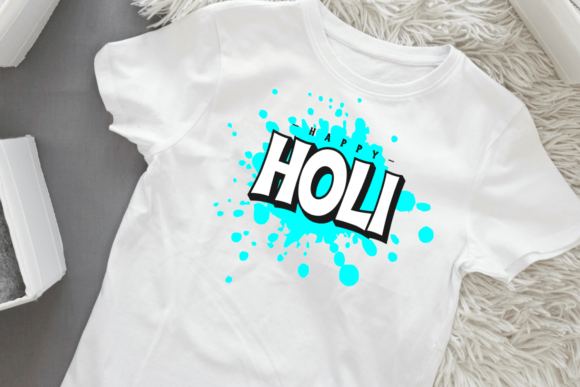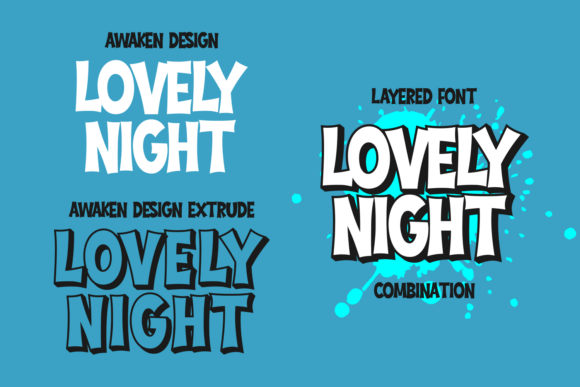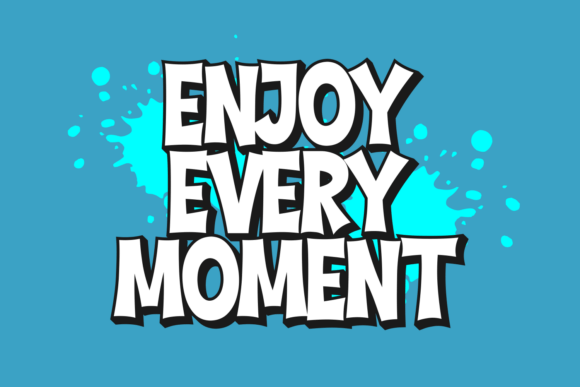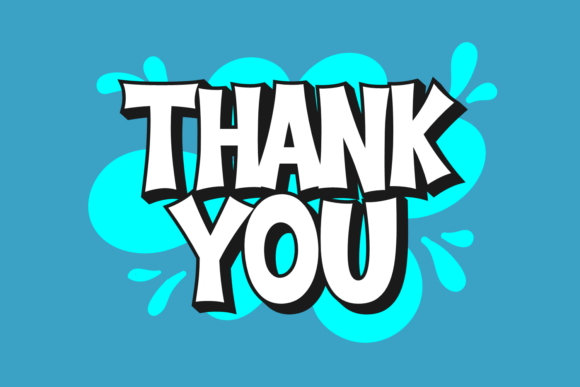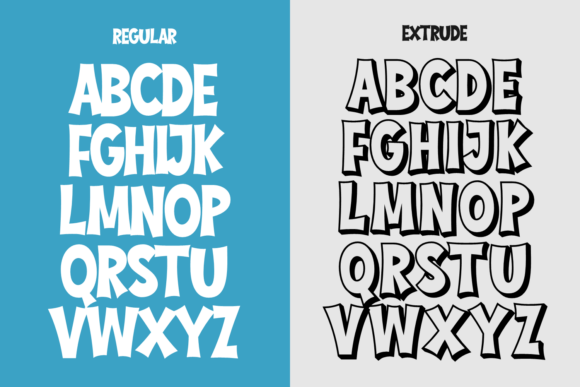
Awaken Design Font: Unleash Your Creativity with this Bold and Energetic Comic Graffiti Font
Are you looking for a font that can add a playful urban vibe to your designs? Look no further than the Awaken Design Font. This bold and energetic comic graffiti font is crafted to bring a fresh and exciting feel to any project. With its chunky letterforms, exaggerated curves, and sharp edges, Awaken Design Font mimics the expressive strokes of street art while maintaining a polished comic-book appeal.
The Perfect Font for Creative Projects
Awaken Design Font exudes fun, creativity, and confidence, making it ideal for a wide range of projects, including posters, branding, children’s content, apparel, games, and designs that demand attention with personality and flair. Whether you’re a designer, craft, or artist, this font is sure to inspire your creativity and help you create stunning visuals.
Two Styles to Suit Your Design Needs
Awaken Design Font comes in two styles: Regular and Extrude. The Regular style features clean, solid graffiti-inspired letters that are perfect for standalone use. The Extrude style, on the other hand, is layered with a bold outline and depth effect, designed to create striking dimensional titles. When combined, the two styles allow for layered, impactful text effects reminiscent of spray-painted tags and comic headlines.
Key Features of Awaken Design Font
- Bold and Energetic: Awaken Design Font is a bold and energetic comic graffiti font that is sure to grab attention.
- Chunky Letterforms: The font features chunky letterforms with exaggerated curves and sharp edges, giving it a unique and playful feel.
- Two Styles: The font comes in two styles: Regular and Extrude, allowing for flexibility in design.
- Polished Comic-Book Appeal: Despite its graffiti-inspired look, Awaken Design Font maintains a polished comic-book appeal that is perfect for a wide range of projects.
- Fun and Creative: The font exudes fun, creativity, and confidence, making it ideal for projects that require a playful and energetic feel.
Use Awaken Design Font for:
- Posters: Create eye-catching posters that demand attention with Awaken Design Font.
- Branding: Use the font to create a bold and energetic brand identity that stands out from the crowd.
- Children’s Content: The font is perfect for children’s books, games, and other content that requires a playful and fun feel.
- Apparel: Create stunning apparel designs that showcase your creativity and style with Awaken Design Font.
- Games: Use the font to create engaging and interactive game designs that appeal to a wide range of audiences.
Tips for Using Awaken Design Font
Here are some tips for using Awaken Design Font to get the most out of your designs:
- Experiment with Different Styles: Try combining the Regular and Extrude styles to create unique and layered text effects.
- Play with Colors: Awaken Design Font looks great in bold and bright colors, so don’t be afraid to experiment with different color schemes.
- Add Texture and Patterns: Add texture and patterns to your designs to give them a more urban and graffiti-inspired feel.
In conclusion, Awaken Design Font is a bold and energetic comic graffiti font that is perfect for designers, crafters, and artists looking to add a playful urban vibe to their projects. With its chunky letterforms, exaggerated curves, and sharp edges, this font is sure to inspire creativity and help you create stunning visuals. Whether you’re working on posters, branding, children’s content, apparel, games, or designs that demand attention, Awaken Design Font is the perfect choice.